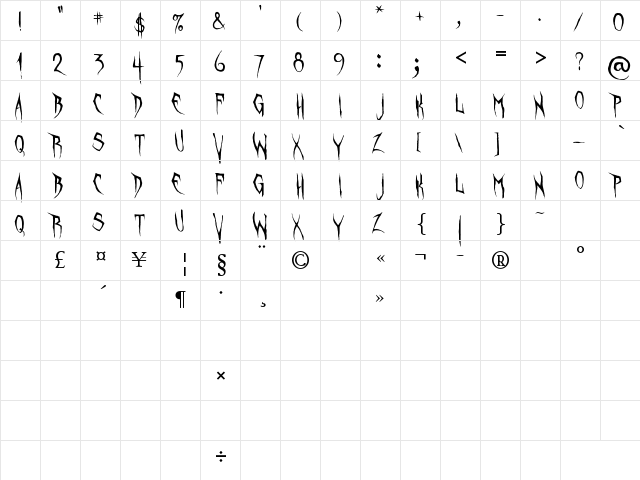
Unquiet Spirits Regular
| Foundry | Sinister Fonts |
| Designer | Chad Savage |
Design Context for Unquiet Spirits Typeface
Unquiet Spirits is a composed and adaptable typeface that performs quietly and consistently across a wide range of design contexts.